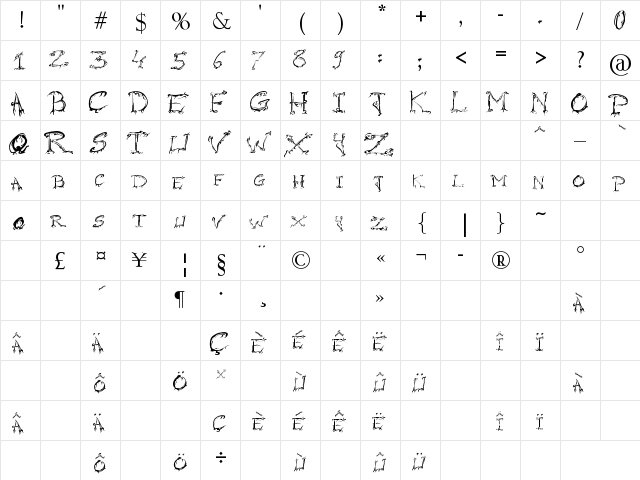
Raslani Horrorz Regular
| Designer | Raslani |
Design Context for Raslani Horrorz Typeface
Raslani Horrorz leans into the macabre with letterforms designed to disturb and intrigue in equal measure.
Perfect for anything that needs to unsettle — game titles, horror branding, and macabre invitations.
Font Pairing: Pair with a clean neutral sans-serif for body copy to let Raslani Horrorz's character lead without overwhelming the composition.
Pro Tip: Use Raslani Horrorz at larger display sizes for maximum impact. Consider generous tracking to let the disturbing character of each letterform breathe.